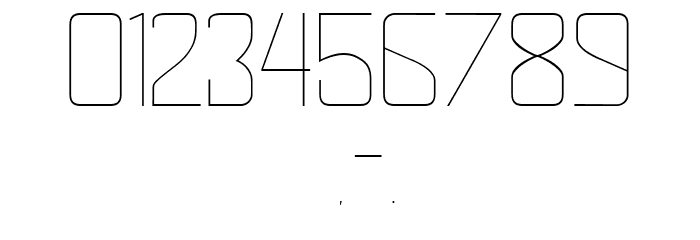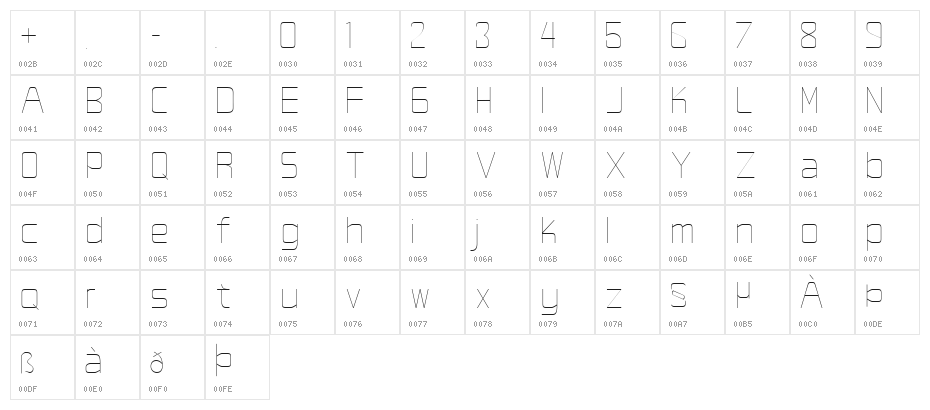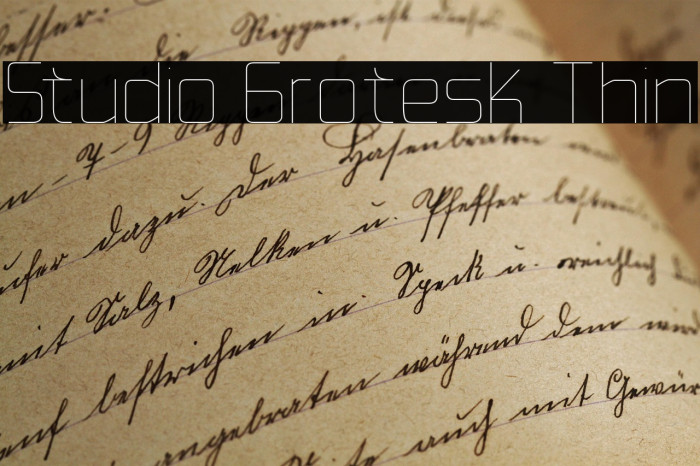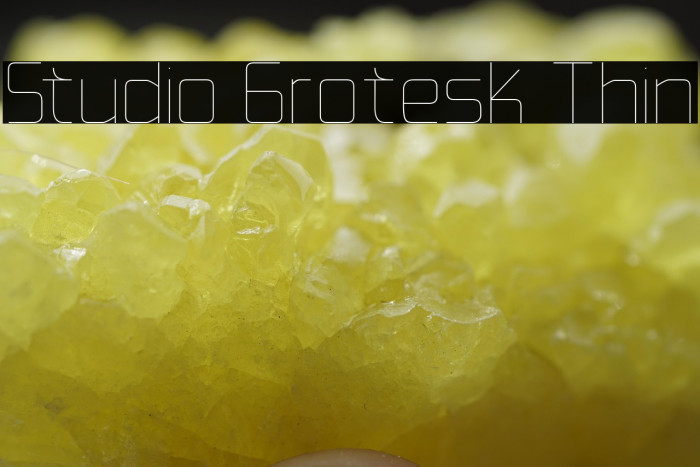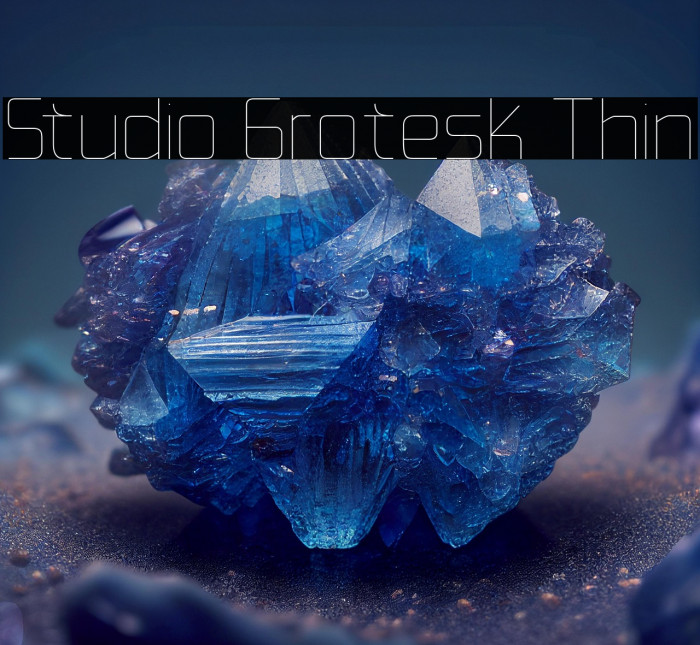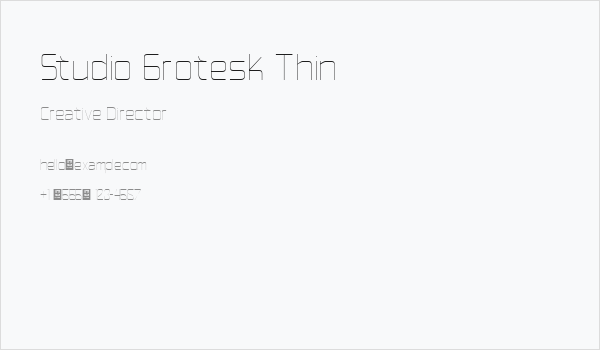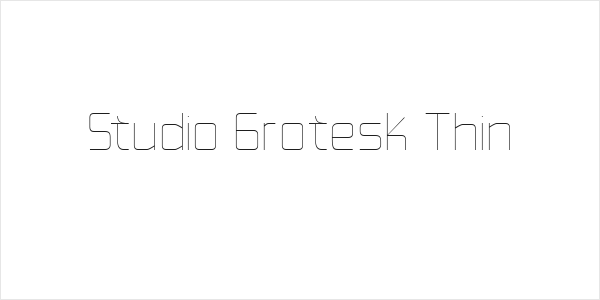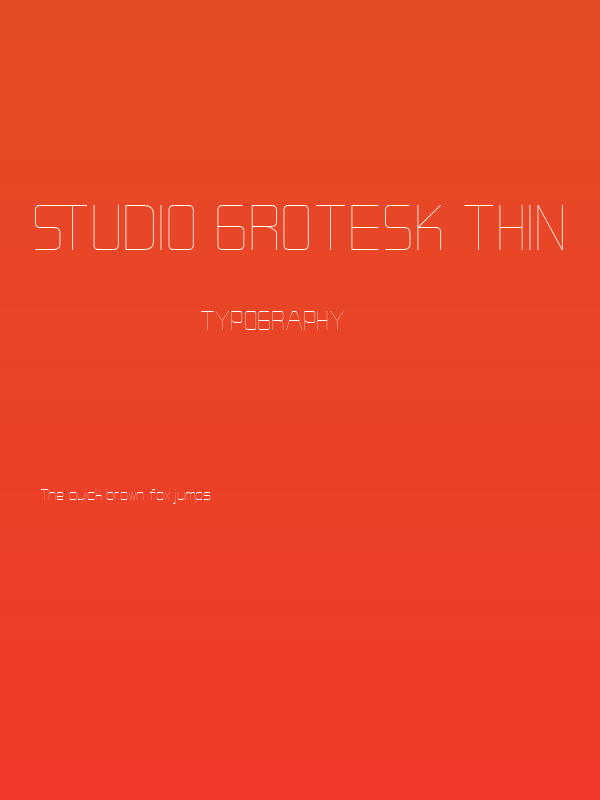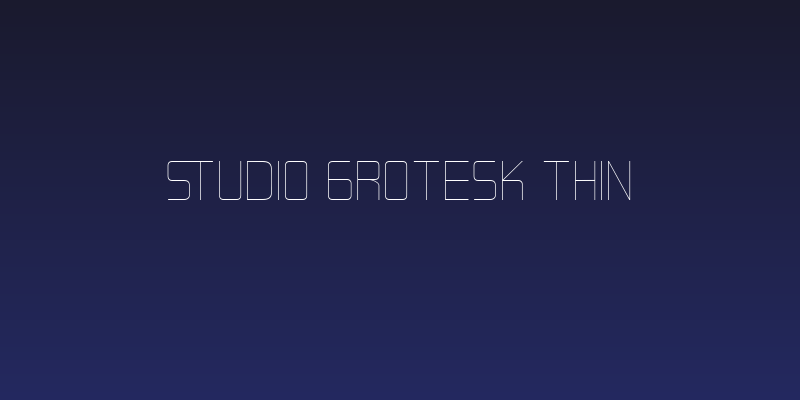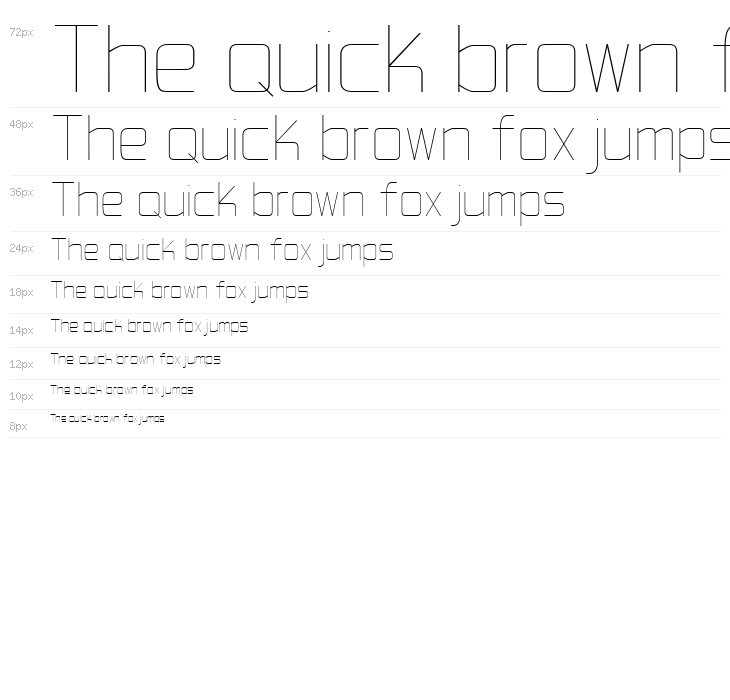
Studio Grotesk Thin Font
Studio Grotesk Thin Description
This font features a sleek and modern design with thin, uniform strokes that give it a minimalist and contemporary appearance. The characters are constructed with a geometric precision, emphasizing straight lines and sharp angles. The uppercase letters are tall and elegant, while the lowercase letters maintain a consistent height, contributing to a clean and cohesive look. The numerals are distinct and easy to read, matching the overall style of the alphabet. Special characters are included, maintaining the same thin and precise line work. This font is ideal for projects that require a modern and sophisticated touch.